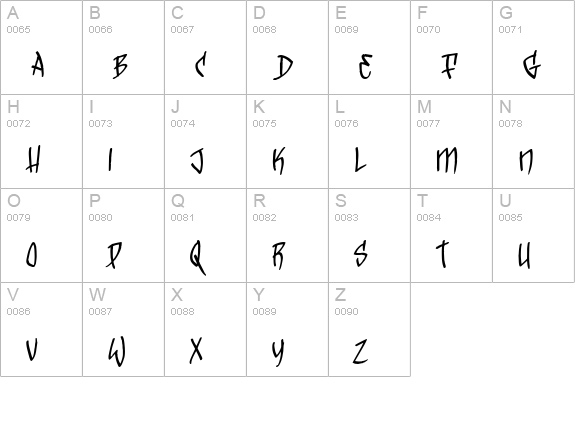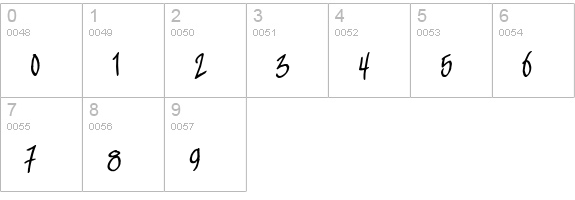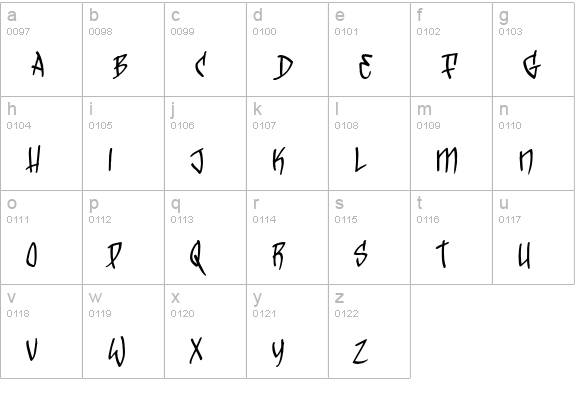
TrickTag Font Details
Introducing TrickTag font - a modern and stylish typeface perfect for adding a touch of creativity to your design projects. This unique font features a playful yet sophisticated look, making it ideal for various purposes such as branding, logos, posters, and more. With its eye-catching design and versatile style, TrickTag font is sure to make your creations stand out. And the best part? TrickTag font is completely free to download at FontsMarket.com. You can easily access this font and enhance your designs without any cost. Don't miss out on this fantastic opportunity to elevate your projects with the distinctive charm of TrickTag font. Download it today and let your creativity shine!